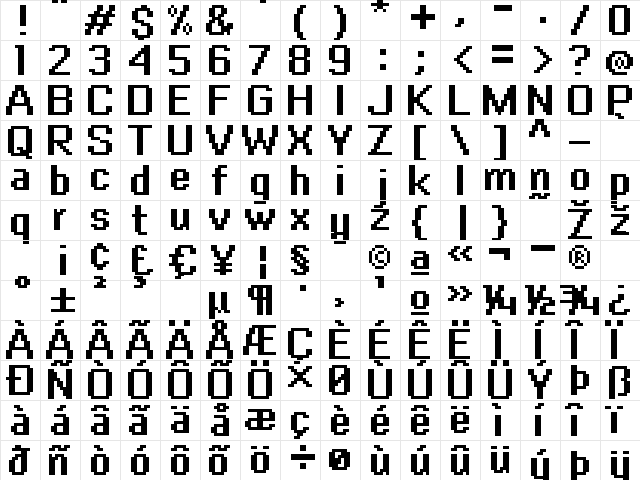
copy 10_66 Regular
| Foundry | Adobe Systems Incorporated |
| Designer | Craig Kroeger |
Design Context for copy 10_66 Typeface
copy 10_66 is a composed and adaptable typeface that performs quietly and consistently across a wide range of design contexts.